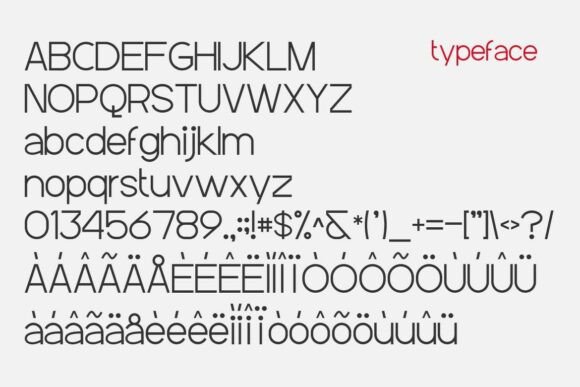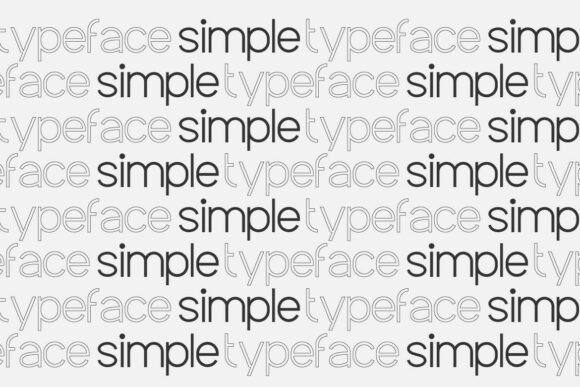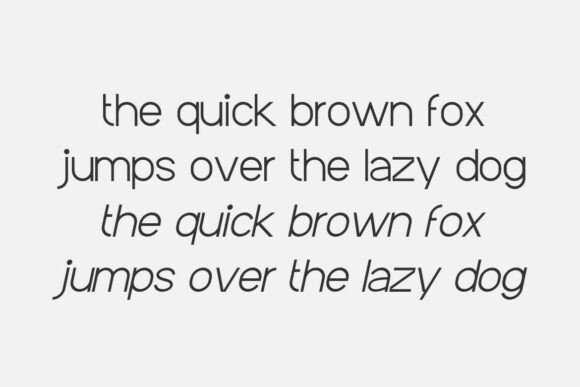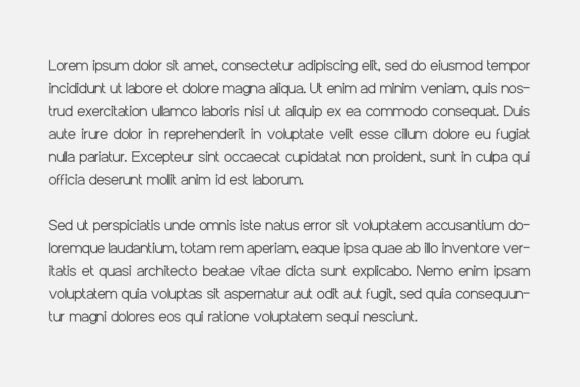
Introduction to Mesozoic Font
As a designer, have you ever been stuck on a project, searching for the perfect font to bring your creative vision to life? I know I have. Remember that one project where you spent hours browsing through design resources, trying to find the perfect sans serif font to match your brand’s identity? For me, that moment was when I stumbled upon the Mesozoic Font.
With its bold and minimalist design, the Mesozoic Font is a game-changer for any creative project. Its clean lines, structured geometry, and spacious balance make it an ideal choice for branding, editorial layouts, technology interfaces, posters, and visual identities that need to feel modern, timeless, and grounded.
Key Features of Mesozoic Font
- High-quality design resource for creative projects, perfect for use in digital art, graphics, and illustrations.
- Features a unique and intricate design, making it ideal for adding a touch of elegance and sophistication to any creative project.
- Is a high-quality, scalable font, ensuring that it remains crisp and clear even at large sizes and high resolutions.
Honest Review: Mesozoic Font
As a designer, I’m always on the lookout for high-quality design resources to elevate my creative projects. The Mesozoic Font caught my eye with its unique blend of prehistoric flair and modern sophistication.
- ✨ The high-quality vector files ensure crisp and clear rendering, even at large sizes.
- ✨ The font’s versatility lends itself well to a variety of creative projects, from logos to typography-heavy designs.
- ⚠️ The font’s unique style may not be to everyone’s taste.
- ⚠️ The font family is relatively small, which may limit its usability for projects requiring multiple font weights.
Mesozoic Font is a versatile design element that can be used in a variety of creative projects, from branding and marketing materials to digital art and graphics. Its high-quality design and transparent background make it a popular choice among designers.
Comparison to Mesozoic Font: Avenir has a more geometric and modern feel compared to Mesozoic Font’s unique, hand-drawn style.